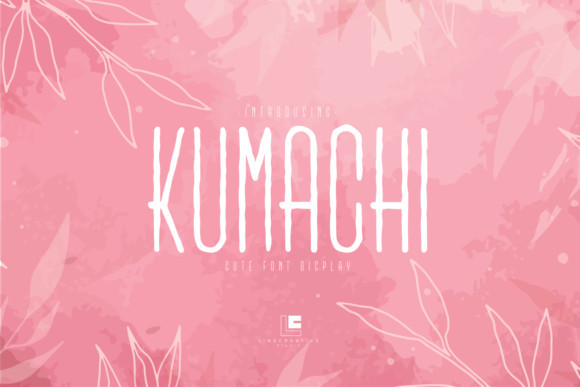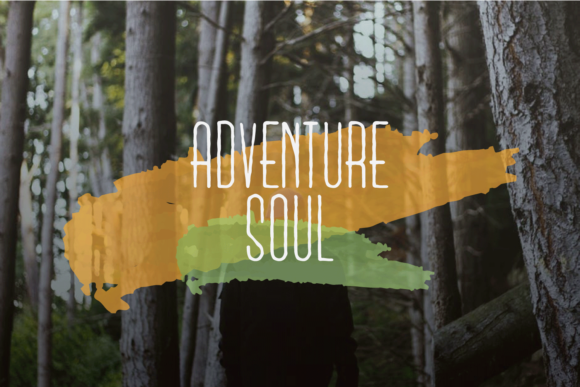
Kumachi Font
Kumachi FontKumachi is a sweet and tall display font. With its neat and beautiful arrangement of letters, this font will look outstanding in both
formal and non-formal designs.